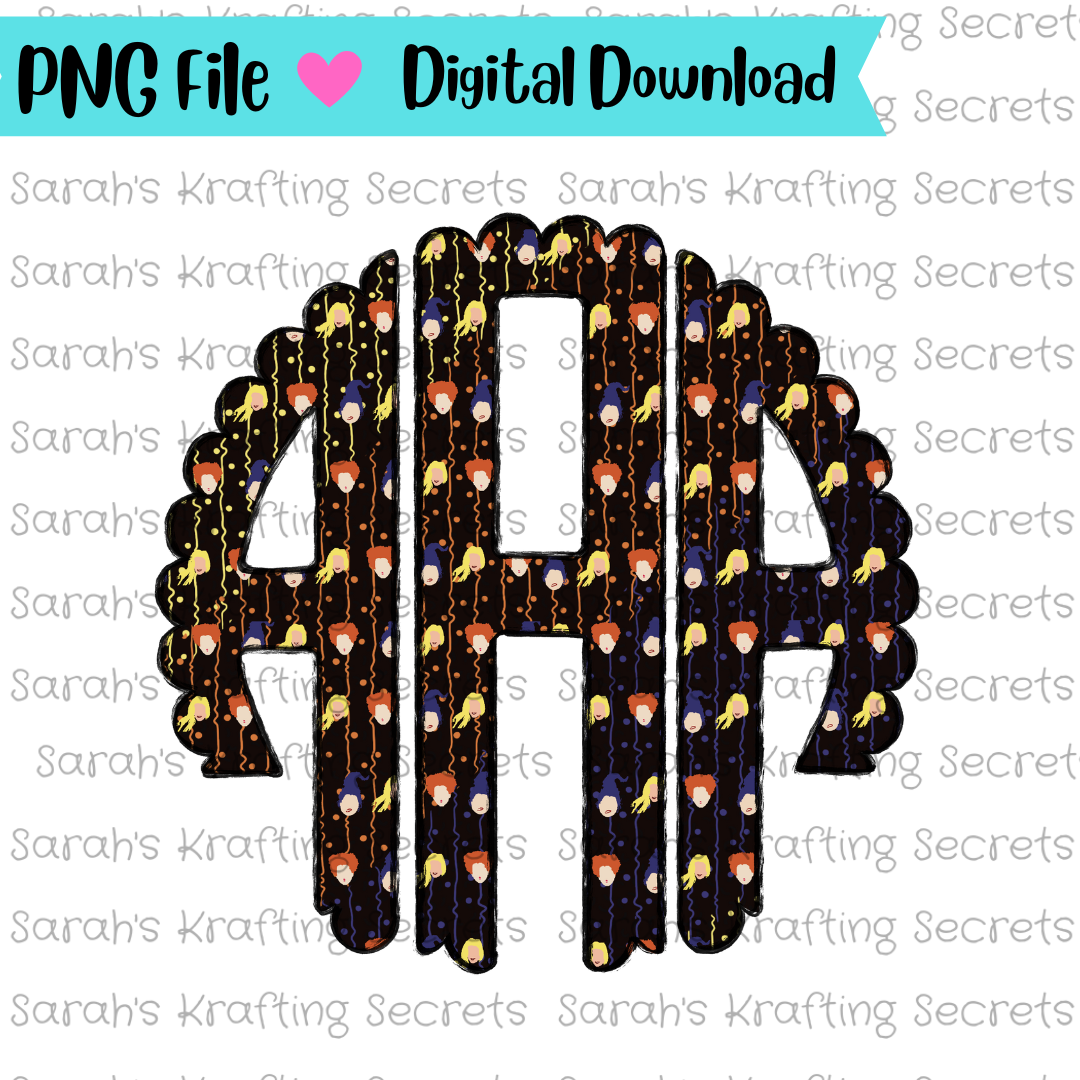
Witchy Sisters Monogram Font
This product is a hand drawn digital download that can be used for a variety of crafts (invitation, scrapbooking, sublimation/screen printing, and etc..)